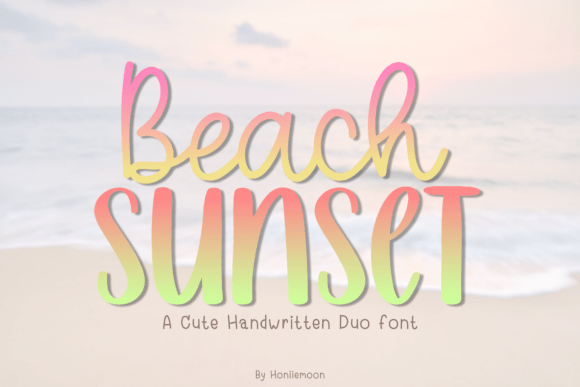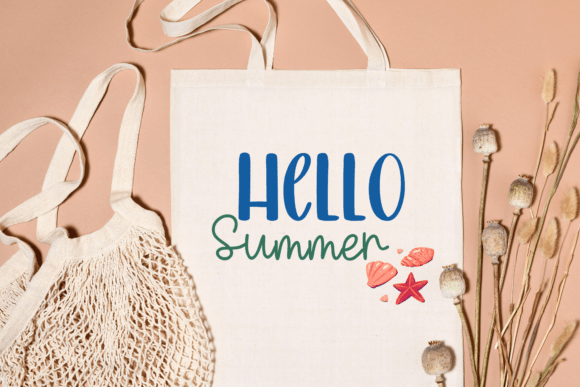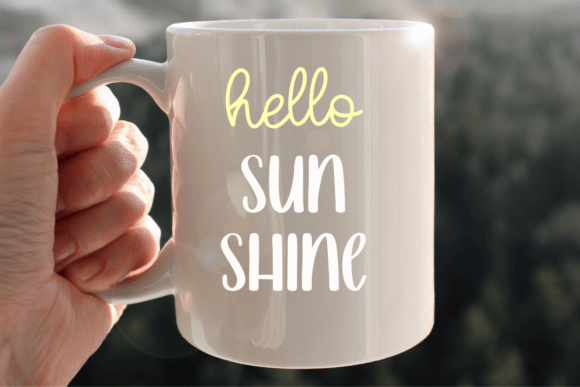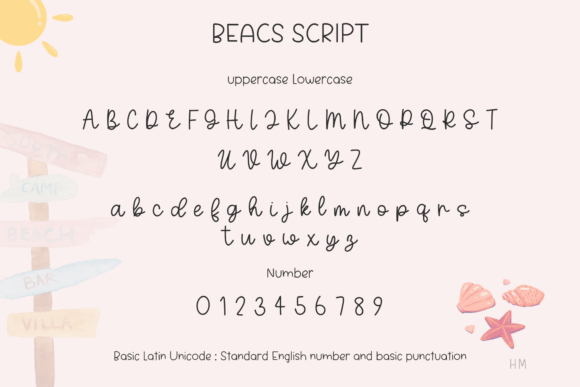
Beach Summer Font
Beach Summer is a friendly duo font (handwritten and script). lending a playful personality that captivates and engages. Capturing the enchanting essence of a handwritten note is the perfect tool to bring your creative vision to life.